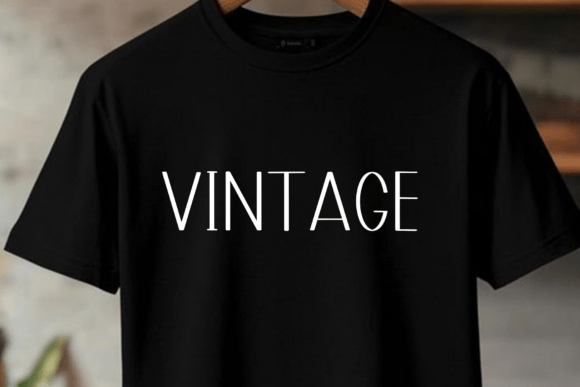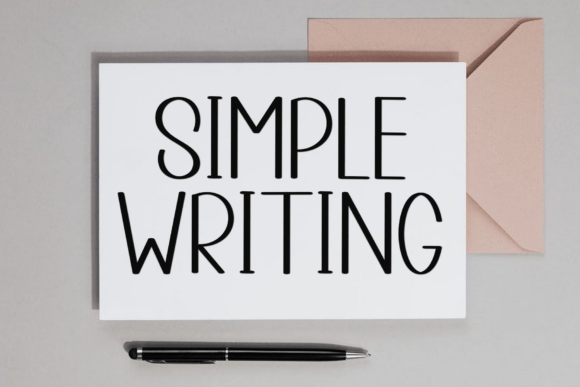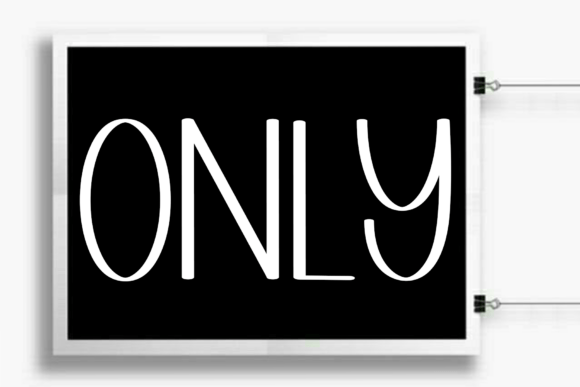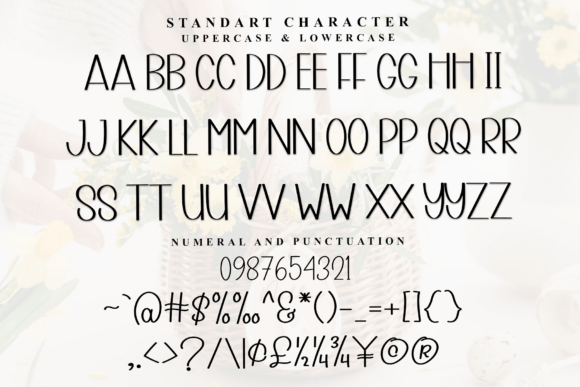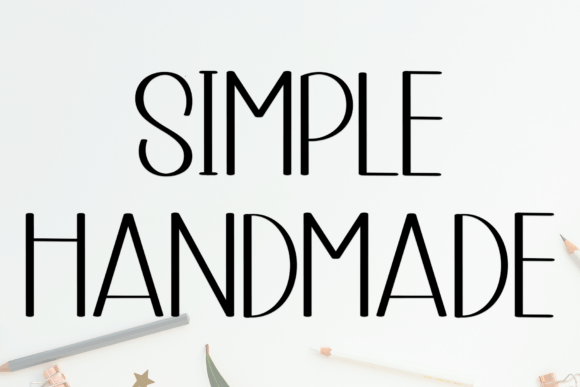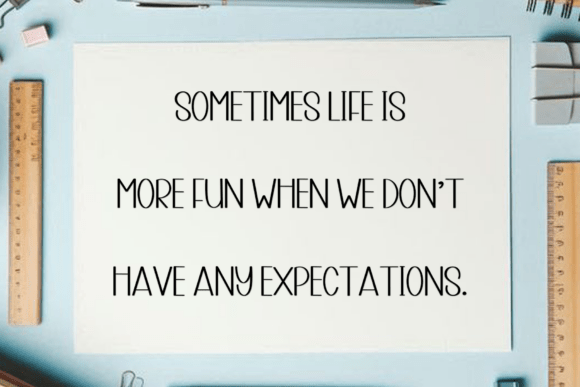
Introduction to Simple Music Font
As designers, we’ve all been there – staring at a blank canvas, eager to bring our creative vision to life. The moment of inspiration hits, and we know exactly what we want to convey. For some, it’s a bold statement; for others, a delicate whisper. Whatever the message, the right font can make all the difference. Enter the Simple Music Font – a high-quality design resource that exudes warmth and friendliness, perfect for personal projects, invitations, and social media graphics.
This charming, hand-drawn font is a valuable asset for designers seeking to add a unique touch to their creative projects. Its round, playful strokes create a relaxed and approachable feel, making it an ideal choice for designers who want to connect with their audience on a personal level. With its transparent background and free download option, the Simple Music Font is an accessible and versatile design resource that can elevate any design.
Key Features of Simple Music Font
- High-quality design resource for music-related projects, ideal for creating engaging and professional-looking materials.
- Includes a range of characters, including notes, rests, dynamics, and more, to cater to various music notation needs.
- Designed to be highly legible and easy to read, even at smaller font sizes, making it suitable for a range of applications.
Honest Review: Simple Music Font
I recently came across the Simple Music Font, a high-quality design resource that caught my attention for its potential in creative projects. One of the standout features of this font is its versatility – it’s perfect for music-related projects, from album art to concert posters.
- ✨ High-quality design that’s both modern and timeless
- ✨ A wide range of glyphs, including musical notes, staffs, and more
- ⚠️ Limited customization options, which may limit its use in certain creative projects
- ⚠️ May not be suitable for complex music notation or detailed musical scores
Overall, I’m impressed with the Simple Music Font. Its clean design and wide range of glyphs make it a valuable resource for designers working on music-related projects. While it may have some limitations, I appreciate the transparent background and free download, which make it a great option for designers on a budget.
Designing with Simple Music Font
The Simple Music Font is a high-quality design resource ideal for any creative project that requires a musical touch. With its transparent background, it can be easily layered over any image or color scheme.
Tips for Getting the Most Out of Simple Music Font
For the best results, use the Simple Music Font in conjunction with a high-quality image or background. You can also experiment with different font sizes and colors to create a unique design.
Common Use Cases for Simple Music Font
The Simple Music Font is commonly used in music-related projects, such as posters, flyers, and social media graphics. It can also be used in educational projects, such as lesson plans and presentations.